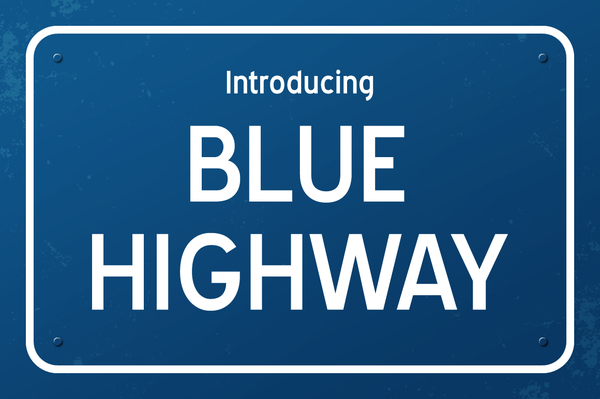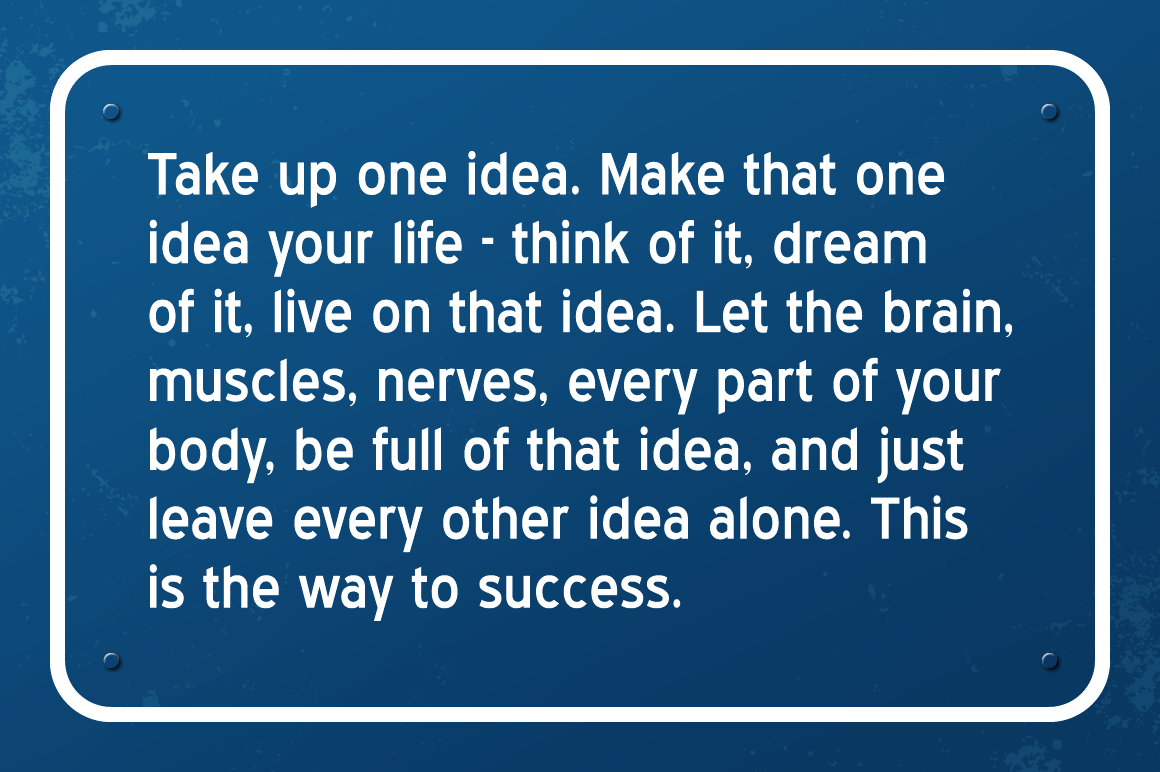
HomePersonal Use FreeBlue Highway Personal Use Free Blue Highway FacebookXPinterestWhatsApp 1 of 2 About Blue Highway Font Blue Highway is a clean and well weighted sans serif font, ideal for body text and headlines in both web and print. This free font is from Typodermic. DOWNLOAD ON CREATIVE FABRICAThis font is sold and delivered by Creative Fabrica. Font Canyon may earn a commission if you buy through this link. People also explored Yosemite Font Block Font Night Vacation Font Signature Font Odensy Font Banaue Font Lovesmith Font Begoodys Reborn Font Hughson Family Font 419 0 TagsBlue Highway Font Previous articleEarwig FactoryNext articleCalega LEAVE A REPLY Cancel reply Comment: Please enter your comment! Name:* Please enter your name here Email:* You have entered an incorrect email address! Please enter your email address here Website: Save my name, email, and website in this browser for the next time I comment. Personal Use Free Fontmageddon Personal Use Free Read more about this font Knox Personal Use Free Read more about this font 1980 Portable Personal Use Free Read more about this font Elsabetha Personal Use Free Read more about this font BLOG Fonts That Capture the Spirit of New York City New York City is more than just a place—it’s an experience, a rhythm, a visual language... Best Fonts for T-Shirt Design – Top 2025 Picks How to Cut Any Font on Cricut: Convert a Font to SVG (Free) Top 7 Google Fonts Alternatives for Faster and Privacy-Friendly Web Design (2025)